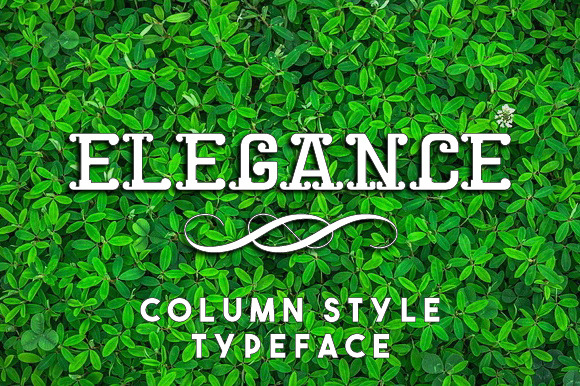
Elegance Font
ELEGANCE is a handcrafted display font inspired by the old roman architecture. It is unique and very unusual font and will be a useful part of a designer collection. Ideal for short titles, names, logotypes.